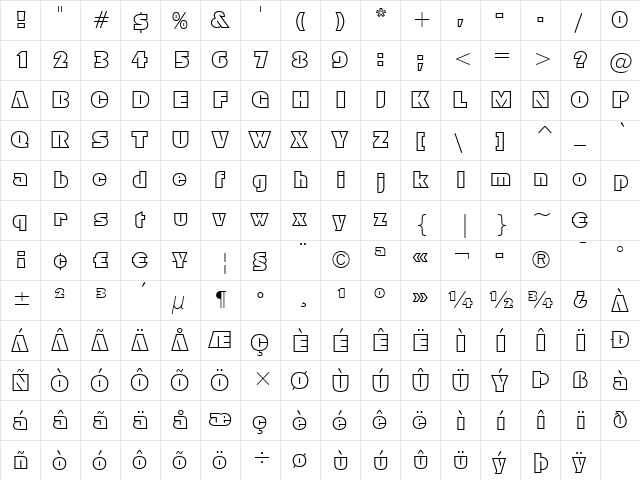
Geometr885 BT Regular
Design Context for Geometr885 BT Typeface
Geometr885 BT is a composed and adaptable typeface that performs quietly and consistently across a wide range of design contexts.